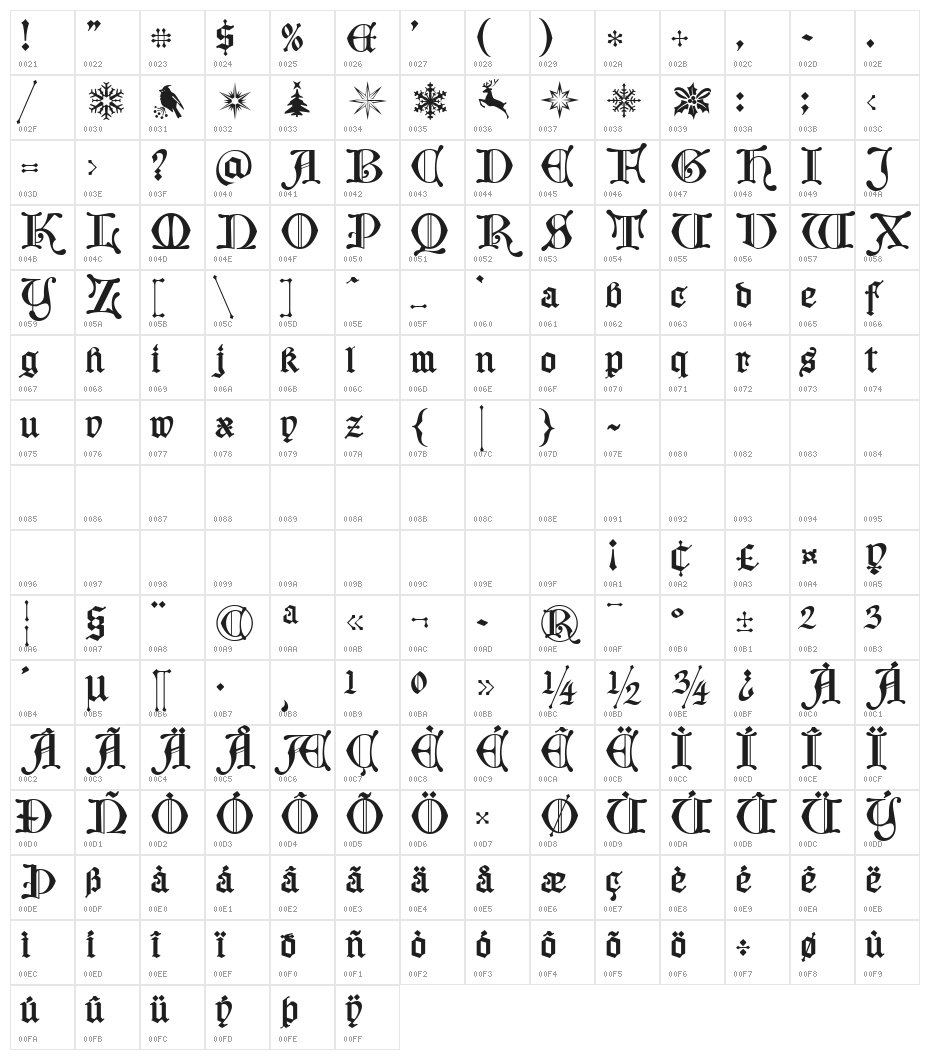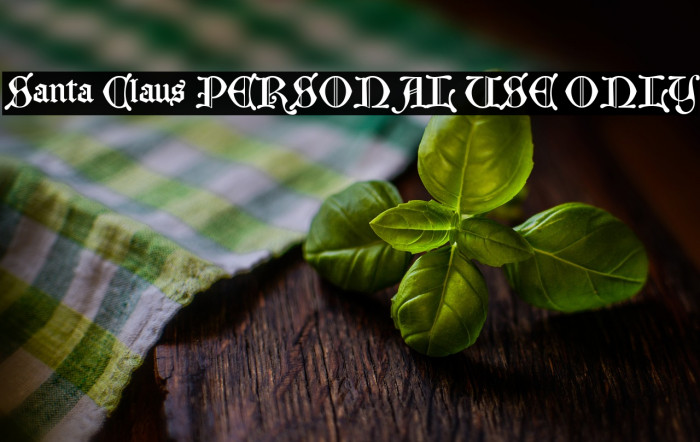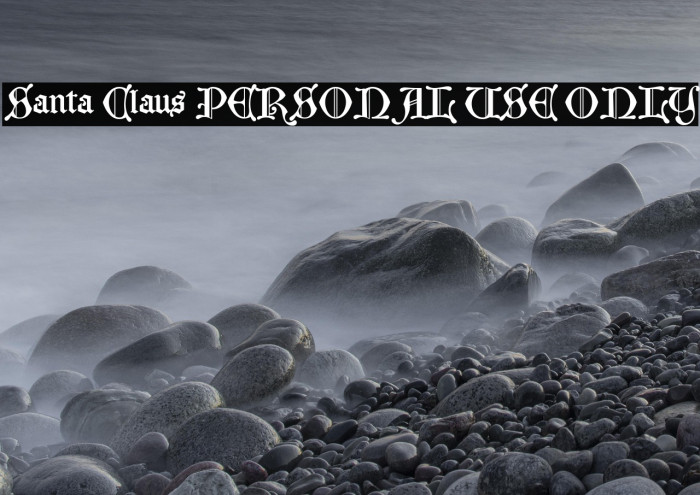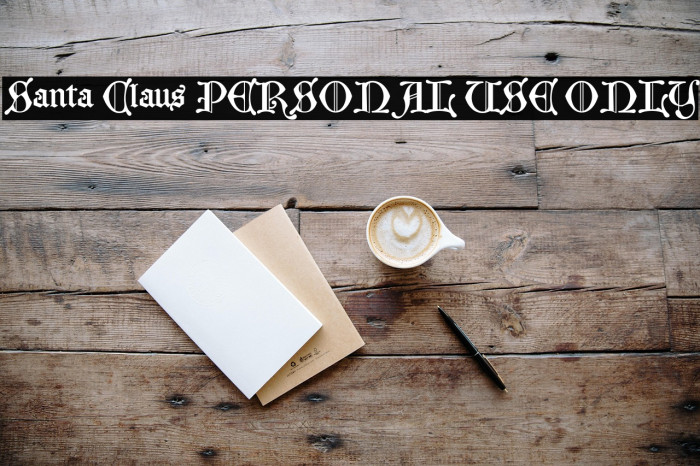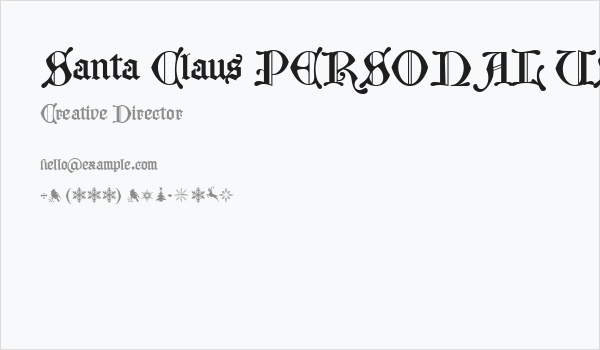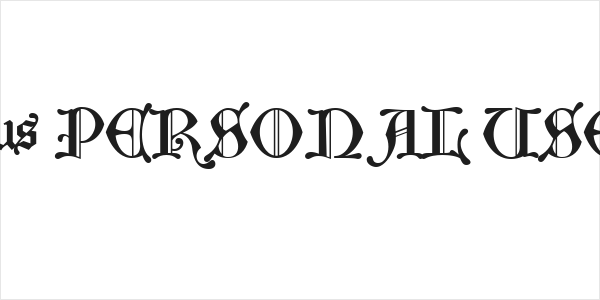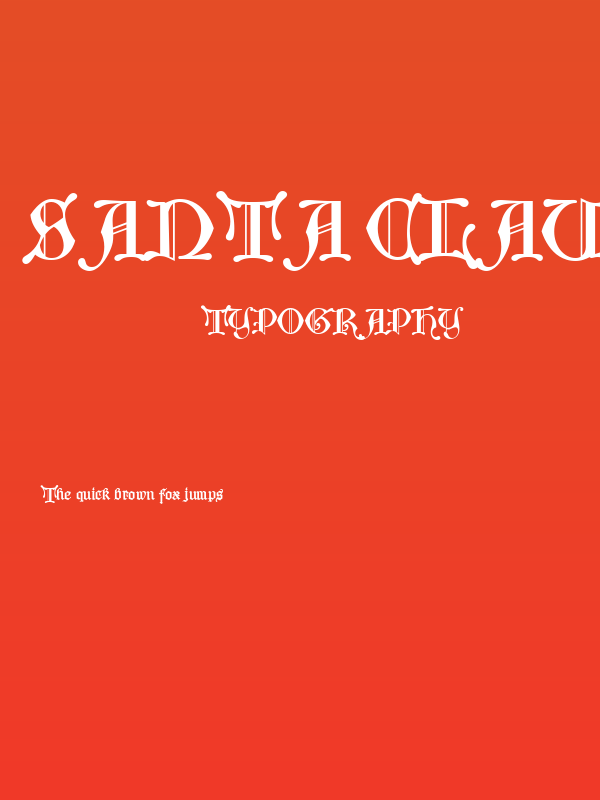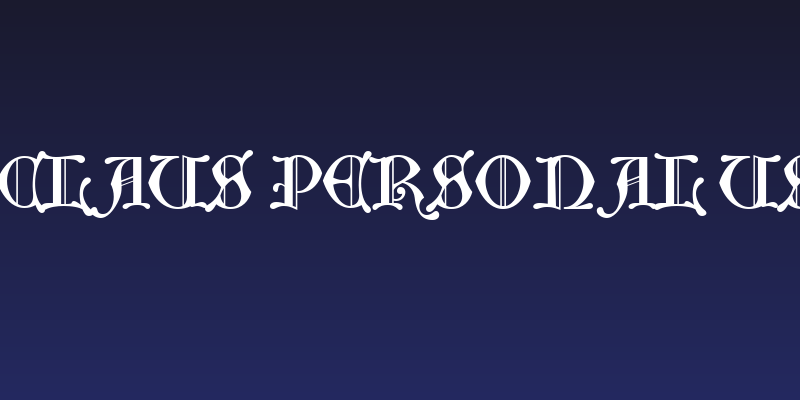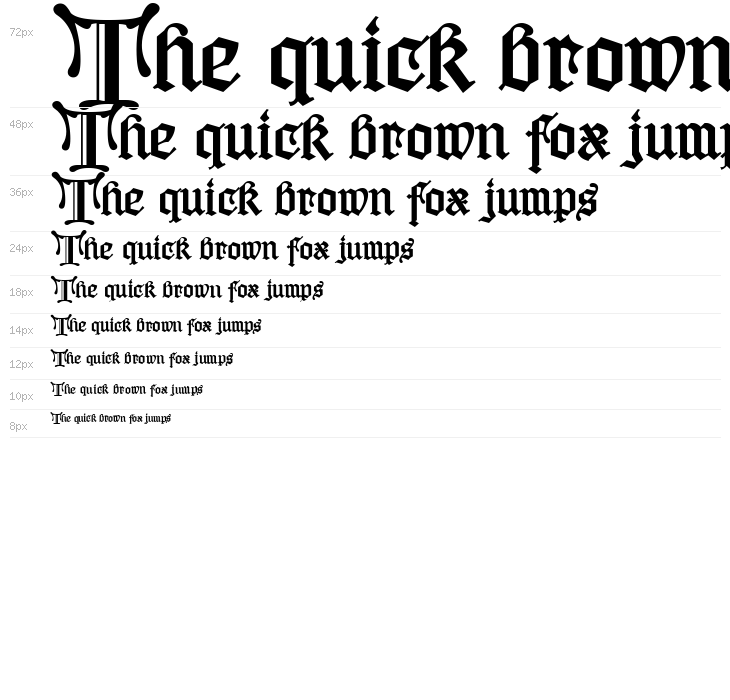
Santa Claus PERSONAL USE ONLY Font
Santa Claus PERSONAL USE ONLY Description
This font features a classic blackletter style with intricate and ornate details, reminiscent of medieval script. The uppercase letters are characterized by sharp, angular lines and decorative flourishes, giving them a bold and dramatic appearance. The lowercase letters maintain the same gothic aesthetic, with a slightly more condensed form. The font includes a variety of special characters and symbols, such as snowflakes and holiday-themed icons, which enhance its decorative appeal. The overall design is highly stylized, making it suitable for projects that require a traditional and festive look.
| Use Case | Headlines, Logos, Decorative text |
| Proposed Projects | Ideal for holiday cards, festive invitations, event posters, and themed branding. |